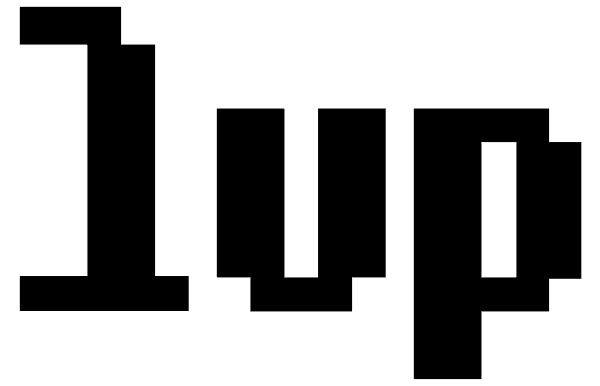
1up
1up is a retro font that is influenced by classic video games and modern pixel fonts. Looks great in display sizes and also works well when used smaller.
1up Font